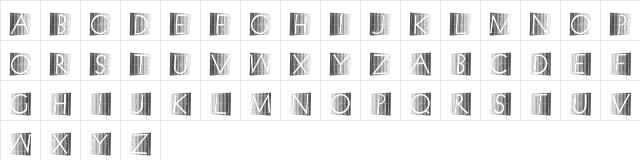
XperimentypoStripes-Two Regular
Design Context for XperimentypoStripes-Two Typeface
XperimentypoStripes-Two is a composed and adaptable typeface that performs quietly and consistently across a wide range of design contexts.